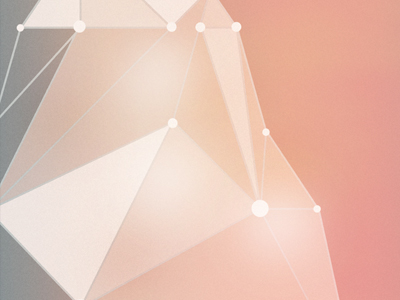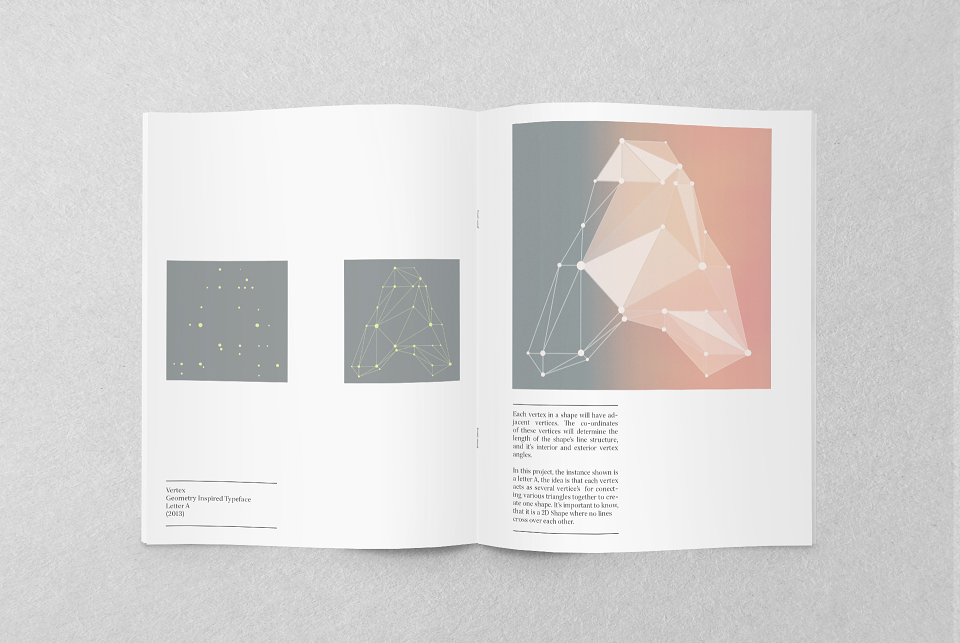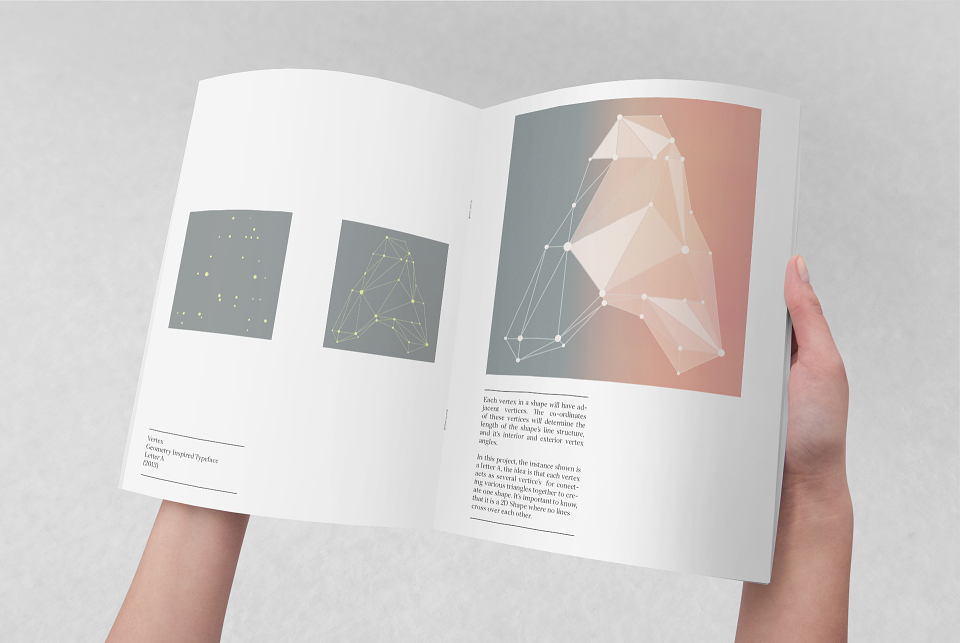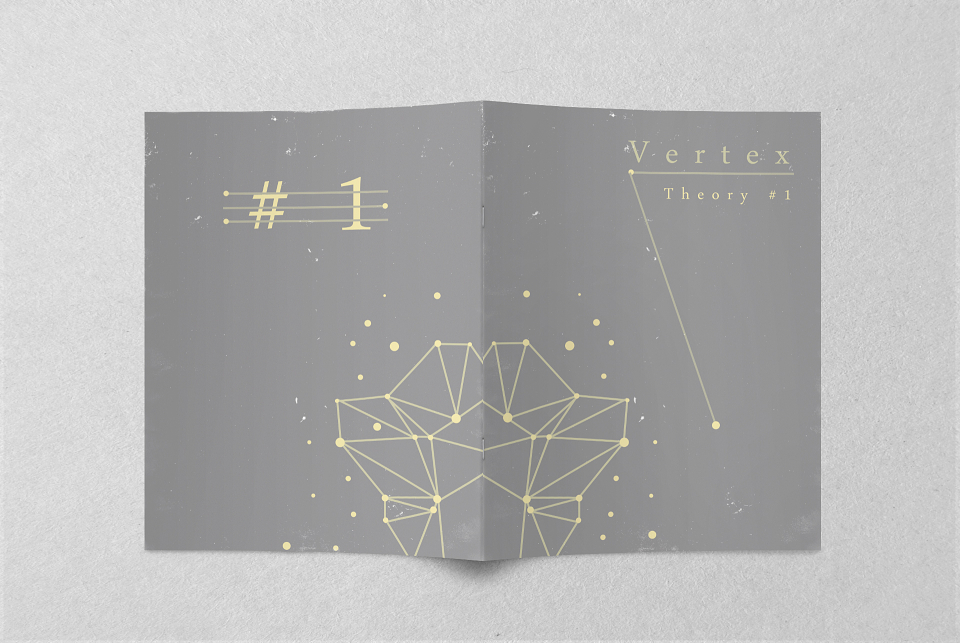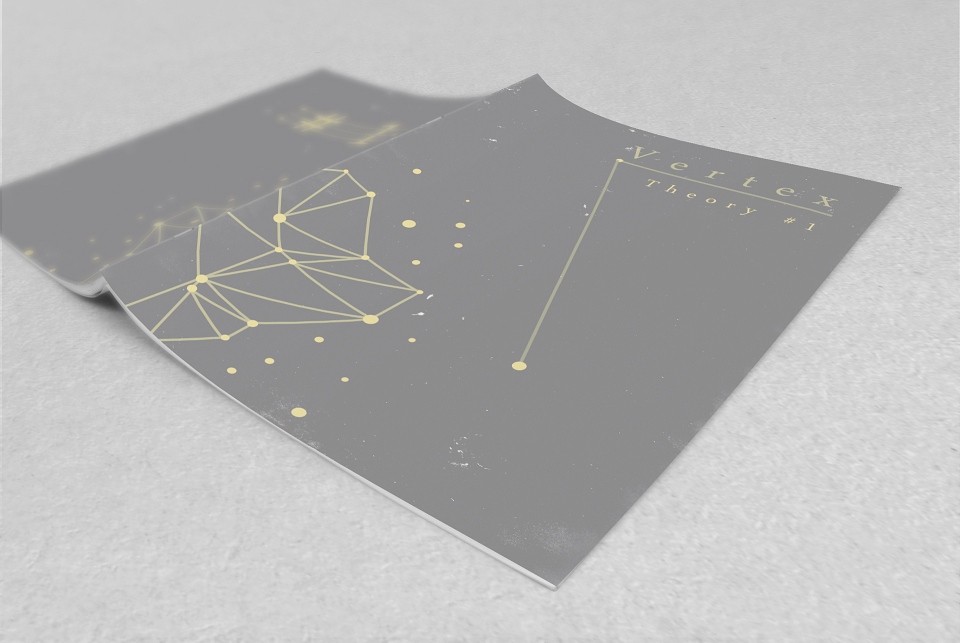
An experimental typeface design that incorporates a combination of beautiful geometric lines, and an intelligent theory- allowing for multiple tweaks to the design of each lettering, simply by modifying a value of each of the circles.
Each vertex acts as several vertices for connecting various triangles together to create one shape. It’s important to know in this created theory, that it is a 2D Shape where no lines ever cross over each other.
Vertex Typeface